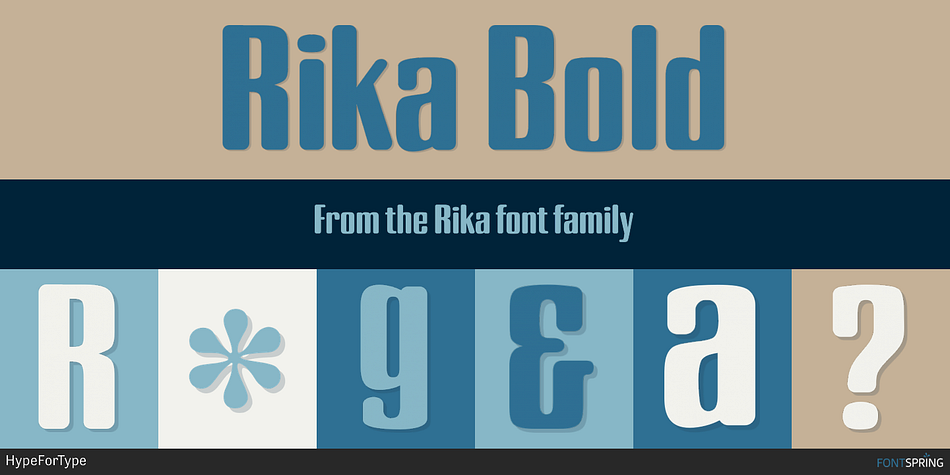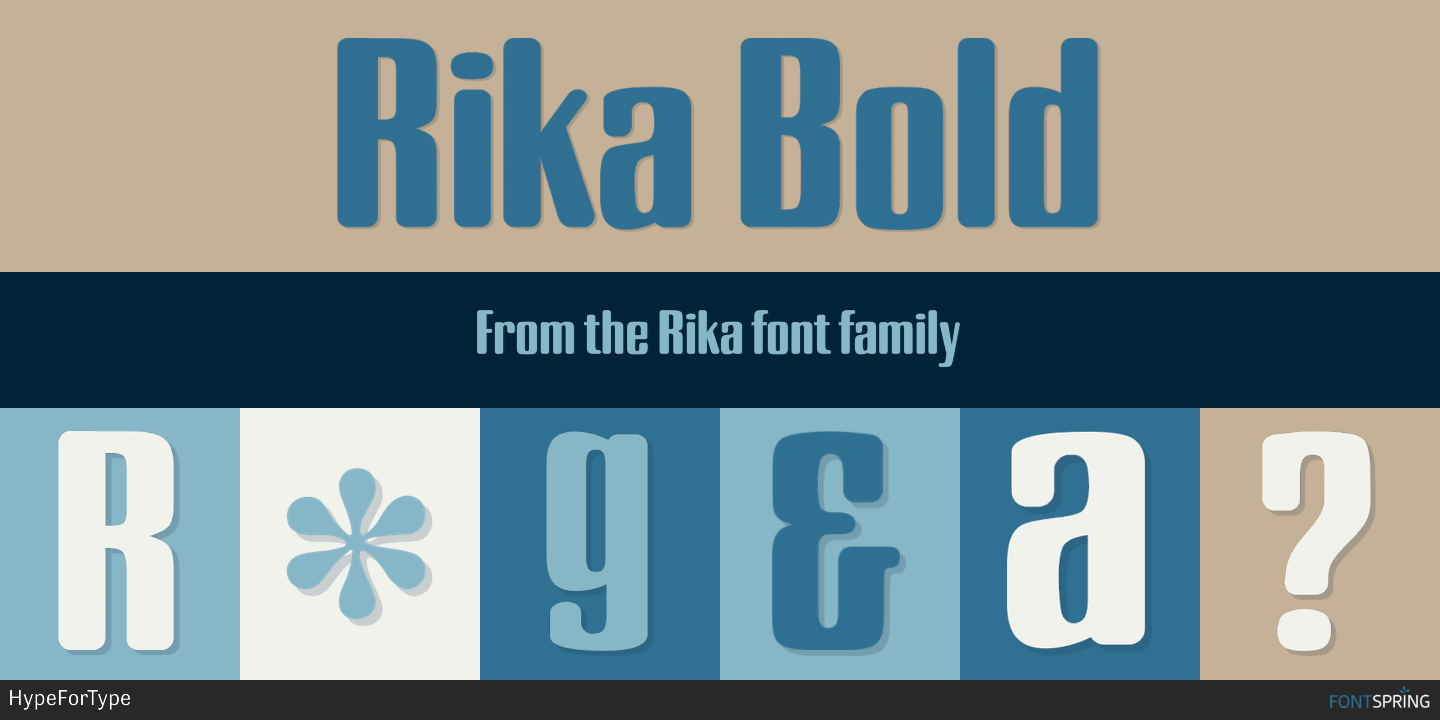
Rika is a display font published by HypeForType.
Rika
Rika is a high impact condensed sans-serif typeface. The overall intention for Rika was to create a typeface that contained male and female characteristics. The male characteristics were done with a very tall, bold and legible frame. The feminine features come in through the use of subtle curves and the user of two different width grids. So to sum it up, I suppose you could class this as a unisex condensed sans serif.